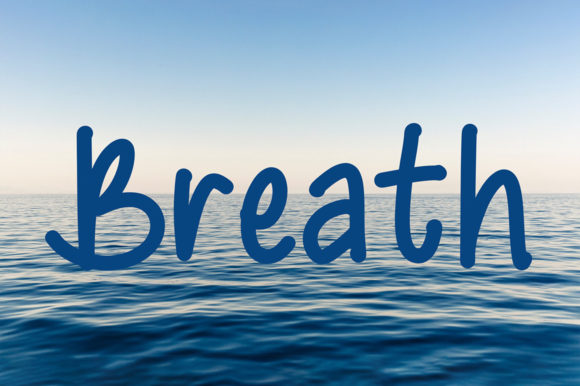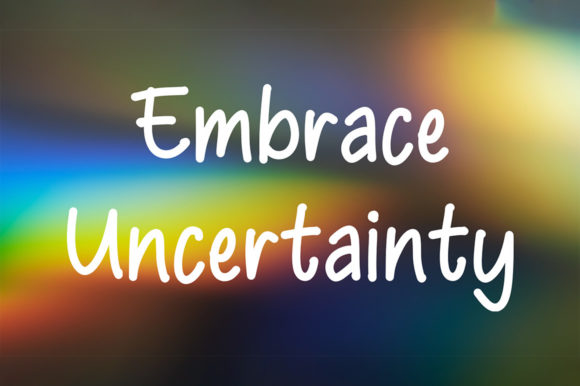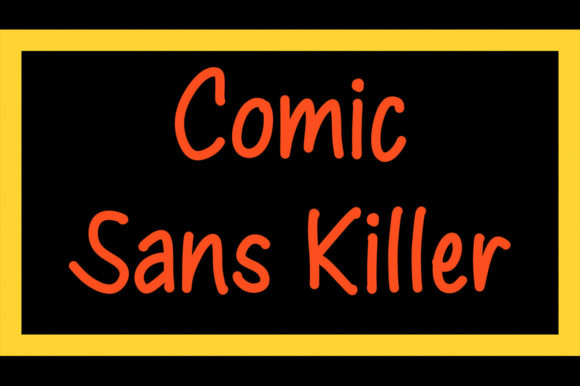
Breath Font
About Breath Font
Breath is an elegant and charming handwritten font. It looks stunning on photography designs, wedding invitations, thank you cards, quotes, greeting cards, logos, business cards, and any other design that requires handwritten typography that’s different from the rest. This font is suitable for all aspects of design.